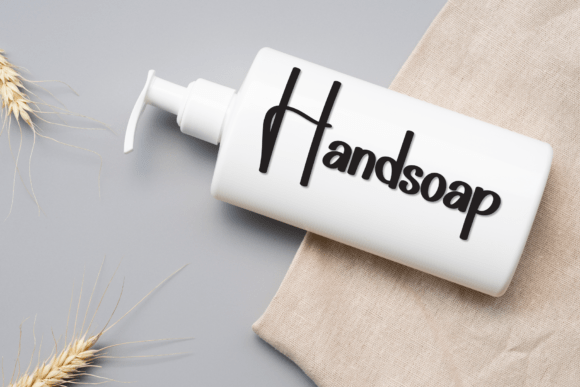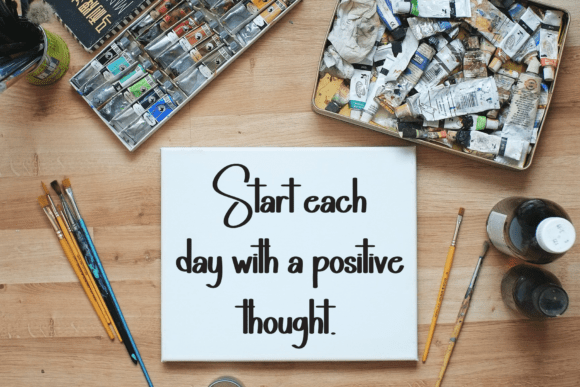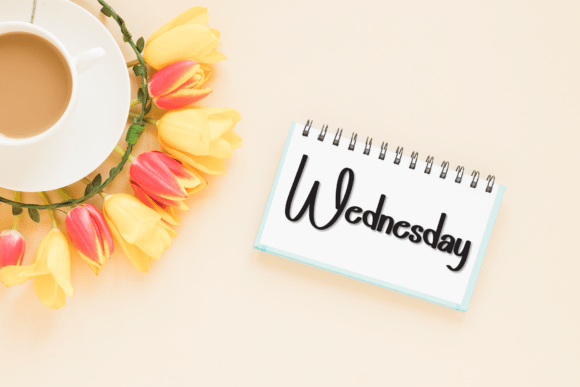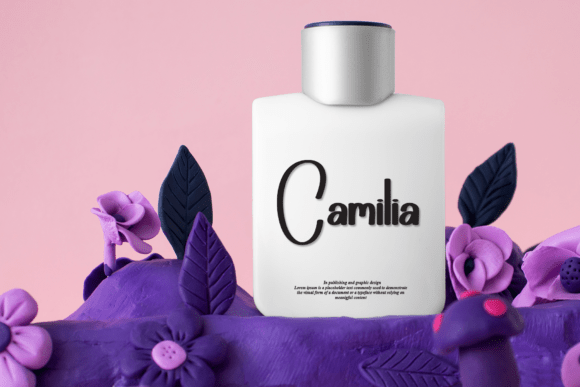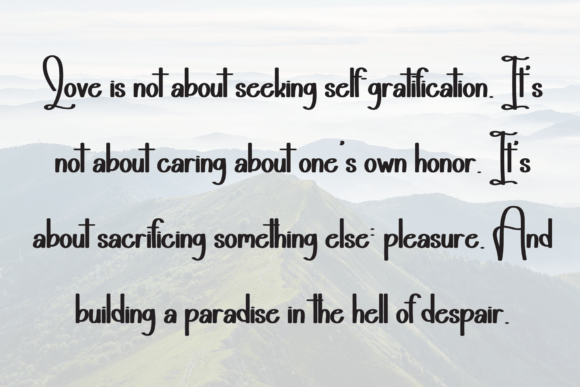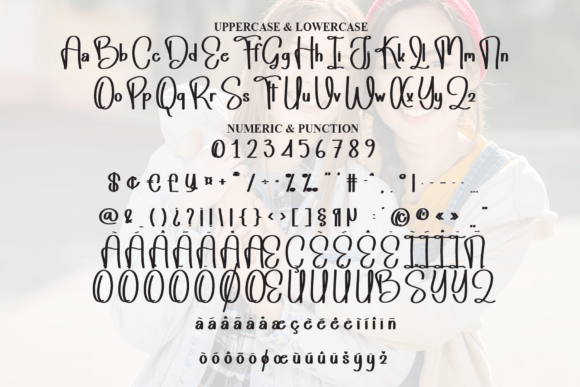
Introducing Bestfriends Font: The Ultimate Display Font for Heartwarming Designs
Are you tired of using the same old fonts for your design projects? Look no further! We’re excited to introduce Bestfriends Font, a delightful handwritten display font that’s sure to bring a touch of sweetness and friendliness to your creations. This charming font is perfect for designers and crafters who want to add a playful and endearing charm to their work.
What Makes Bestfriends Font So Special?
Bestfriends Font is a unique and stylish typography that’s infused with an endearing charm. Every letter is carefully crafted to bring a lighthearted and playful touch to your designs. Whether you’re creating heartwarming wedding invitations, eye-catching cards, or any other design project, this font is sure to brighten up your work with its warm and friendly appeal.
The Perfect Font for Wedding Invitations and Cards
Wedding invitations and cards are a great way to showcase the beauty of Bestfriends Font. This font is specifically designed to bring a touch of romance and whimsy to your wedding designs. Imagine creating stunning wedding invitations that set the tone for a beautiful and unforgettable celebration. With Bestfriends Font, you can add a personal touch to your designs and make them truly special.
Beyond Wedding Invitations: Endless Design Possibilities
While Bestfriends Font is perfect for wedding invitations and cards, its uses don’t stop there. This versatile font can be used for a wide range of design projects, including:
- Party invitations and decorations
Why Choose Bestfriends Font?
So, what sets Bestfriends Font apart from other fonts? Here are just a few reasons why you should choose this amazing font for your next design project:
- Unique and playful design: Bestfriends Font has a one-of-a-kind design that’s sure to make your work stand out.
- Easy to read and use: Despite its playful design, Bestfriends Font is easy to read and use, making it perfect for a wide range of design projects.
Get Ready to Dive into a World of Fun and Creativity
With Bestfriends Font, you can unlock a world of creative possibilities. Whether you’re a designer, crafter, or simply someone who loves to create, this font is sure to inspire you to try new things and push the boundaries of your imagination.
How to Use Bestfriends Font in Your Designs
Using Bestfriends Font in your designs is easy! Here are a few tips to get you started:
- Pair it with other fonts: Bestfriends Font looks great when paired with other fonts. Try combining it with a bold font for a striking contrast.
- Experiment with colors: This font looks great in a variety of colors. Try experimenting with different colors to find the perfect combination for your design.
- Use it for headings and titles: Bestfriends Font is perfect for headings and titles. Use it to add a touch of personality to your designs.
In conclusion, Bestfriends Font is a delightful handwritten display font that’s sure to bring a touch of sweetness and friendliness to your designs. With its unique and playful design, ease of use, and versatility, this font is perfect for designers and crafters who want to add a personal touch to their work. So why wait? Dive into a world of fun and creativity with Bestfriends Font and see the difference it can make in your designs!